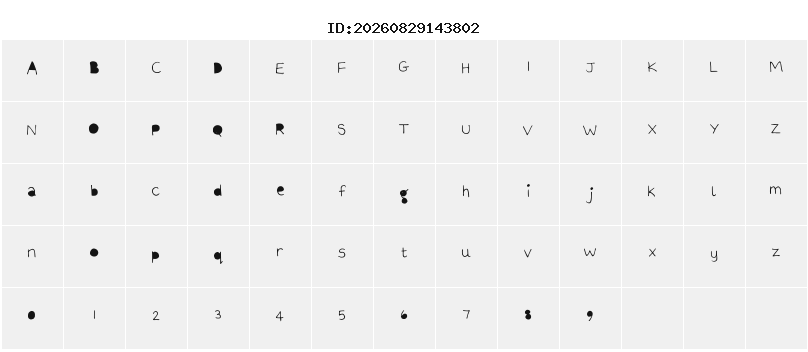
• Font Name: The quick brown fox
• Full Font Name: The quick brown fox Medium
The quick brown fox.ttf is a modern, elegant sans-serif font designed for ultimate readability and visual harmony. Perfect for branding, headlines, web design, and print materials.